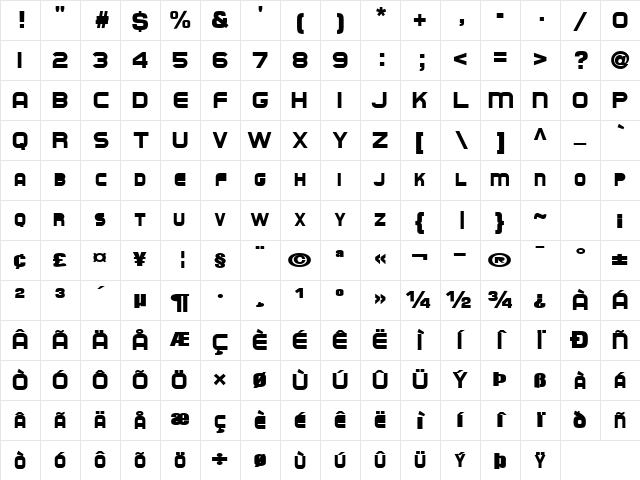
BurningFactsText79 Bold
Design Context for BurningFactsText79
BurningFactsText79 is a composed and adaptable typeface that performs quietly and consistently across a wide range of design contexts. Its bold stroke weight gives it real presence on the page.